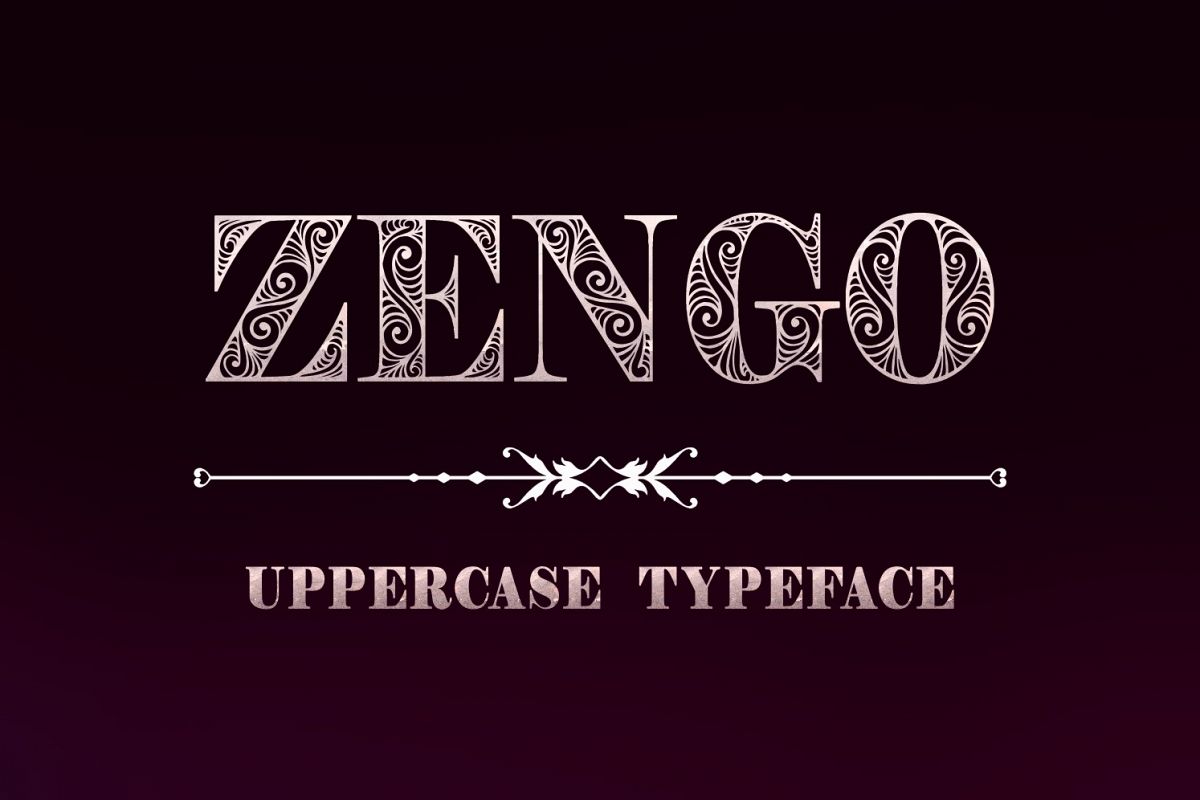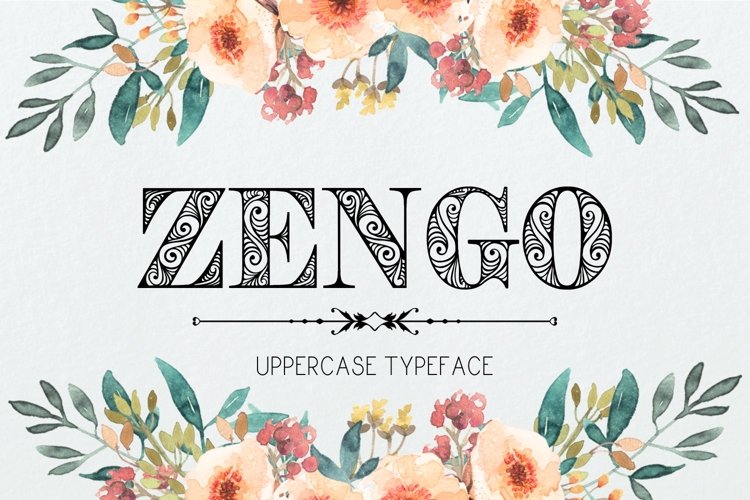
Zengo font
Zengo
Introducing Zengo hand drawn decorative font.
This font is great for book covers, titling, signage, poster, flyers, calendars, headlines, businnes cards and other printed stationeries.
Zengo font